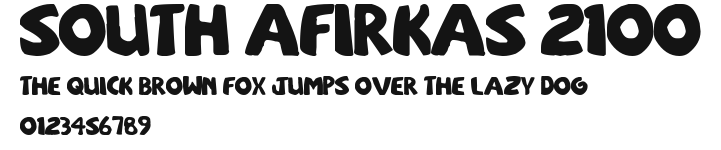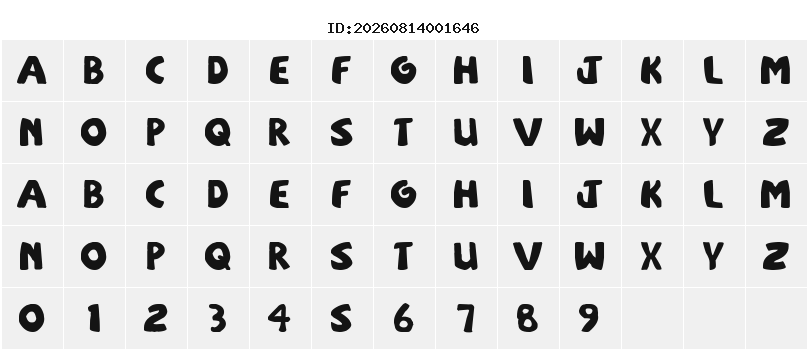
• Font Name: sOuTh Afirkas 2100
• Full Font Name: sOuTh Afirkas 2100
• Version: Version 1.00 June 4, 2009, initial release
sOuTh Afirkas 2100.ttf is a modern, elegant sans-serif font designed for ultimate readability and visual harmony. Perfect for branding, headlines, web design, and print materials.